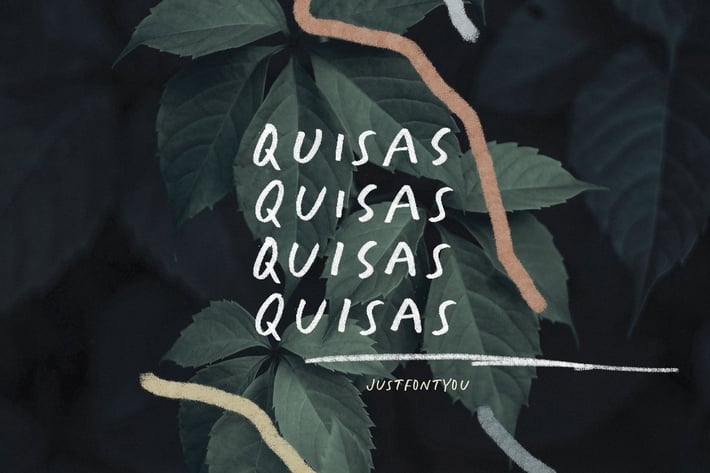
Quisas - Quirky Handwriting Fonts
Quisas, a pack of loosy handwriting fonts with all caps style, mix it up with uppercase and lowercase and you'll get a different vibes from it. Oh and it comes with SVG version too, just in case you need to look more natural in latest Adobe Photoshop style.
Since SVG fonts are bitmap based font, i suggest to not make it bigger more if you see some decreased quality in the letters.